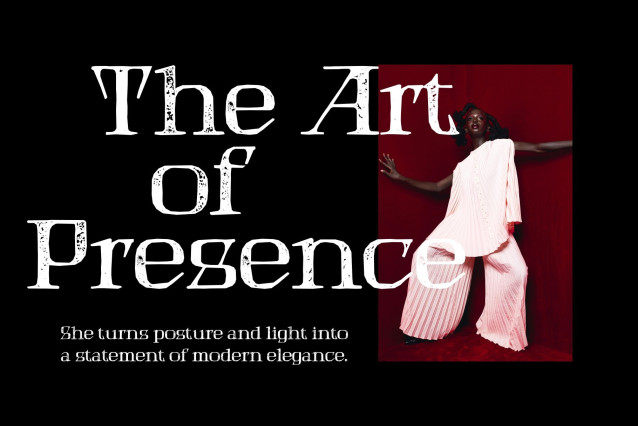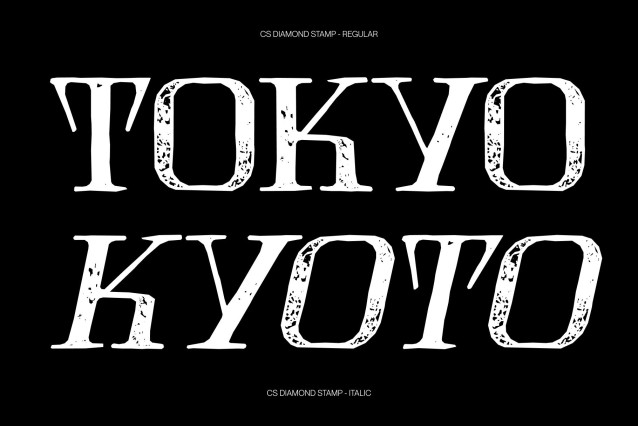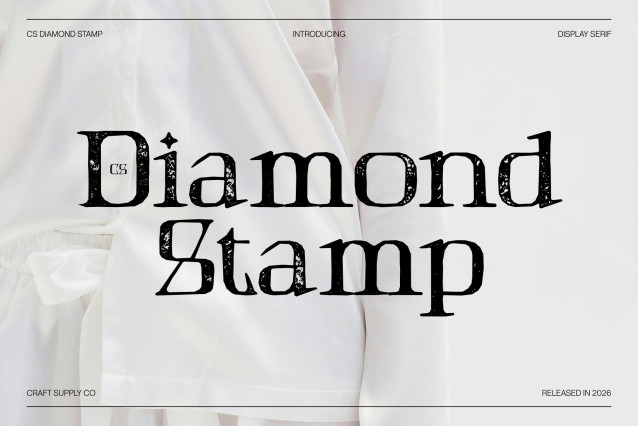
Diamond Stamp Font
CS Diamond Stamp – Serif Font: Classic Elegance with a Modern Twist
Classic Meets Modern with Vintage Texture
This is a modern serif font that seamlessly blends traditional serif elegance with a contemporary geometric aesthetic. Its high contrast strokes and sharp, clean lines create a refined structure, while the added stamp effect introduces a subtle distressed texture bringing a timeless, vintage character to its polished form.
Sophisticated Form with Artistic Depth
The stamp texture enhances each letter with an organic, slightly worn impression, reminiscent of classic print techniques and handcrafted ink impressions. This artistic detail softens the geometric precision, adding warmth and authenticity without compromising its elegant, professional appeal.
Professional, Readable, and Distinctive
Engineered for clarity, this font maintains excellent readability across various sizes and mediums. Whether used for branding, editorial layouts, advertising, or web design, its well-defined letterforms remain crisp and legible while the textured finish adds visual richness and personality.
Versatile with Timeless Sophistication
From luxury branding and high-end packaging to refined marketing materials and stylish headlines, this font offers a balance of classic grace and modern confidence. Its combination of structured elegance and vintage stamp character ensures every design feels sophisticated, memorable, and full of depth.